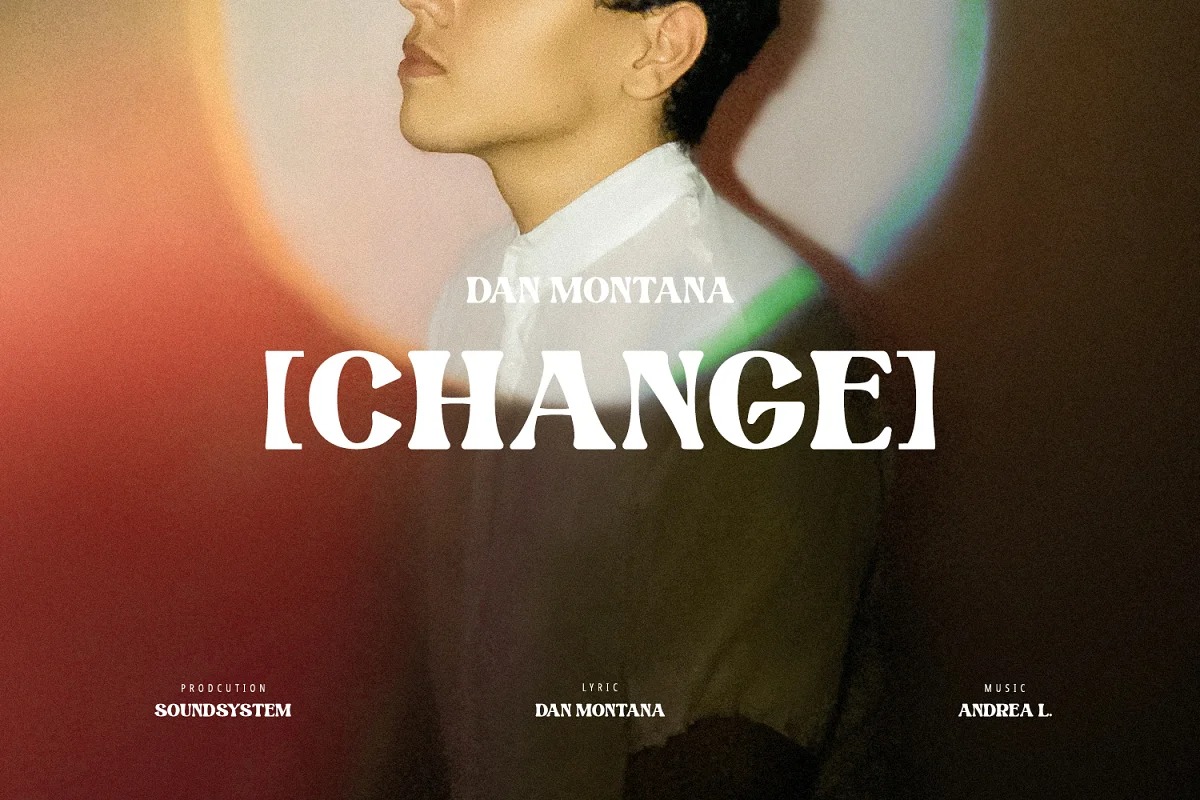
Wild Month Serif Font
This is a simple and classy font, coming with open type features such as style alternatives, initial and final shapes, and ligatures. An excellent choice to add the right amount of modernity. This typeface with artistic style looks very interesting for loads of different projects and promotions. A great all-in-one package for your logo, book cover, poster, t-shirt, branding, and advertisement needs.